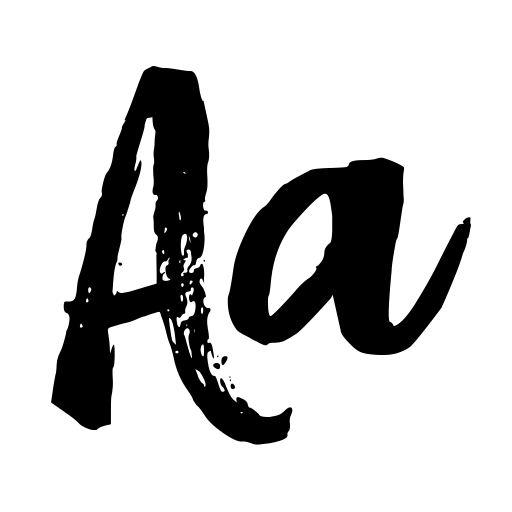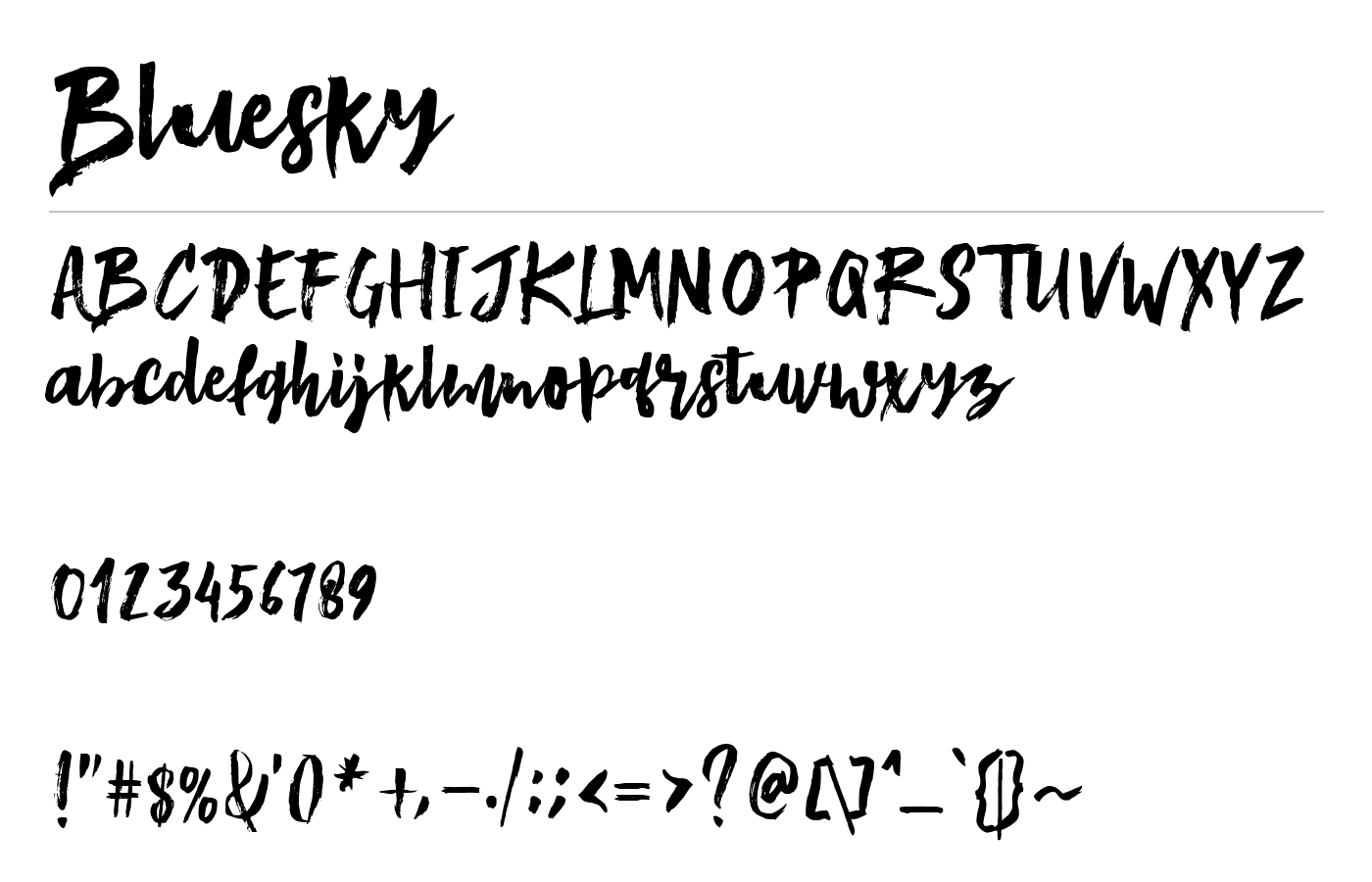
Bluesky is a bold, brush script font with a lively, hand-painted feel that adds a dynamic and casual touch to designs. Its textured strokes and energetic letterforms make it ideal for creative projects, branding, and headlines that seek a personal, artistic vibe. This font works especially well for logos, posters, and packaging where a spontaneous, expressive style is desired.
Bluesky Font
About Bluesky Font
| Font family | Bluesky Font |
| Designer | Anwar |